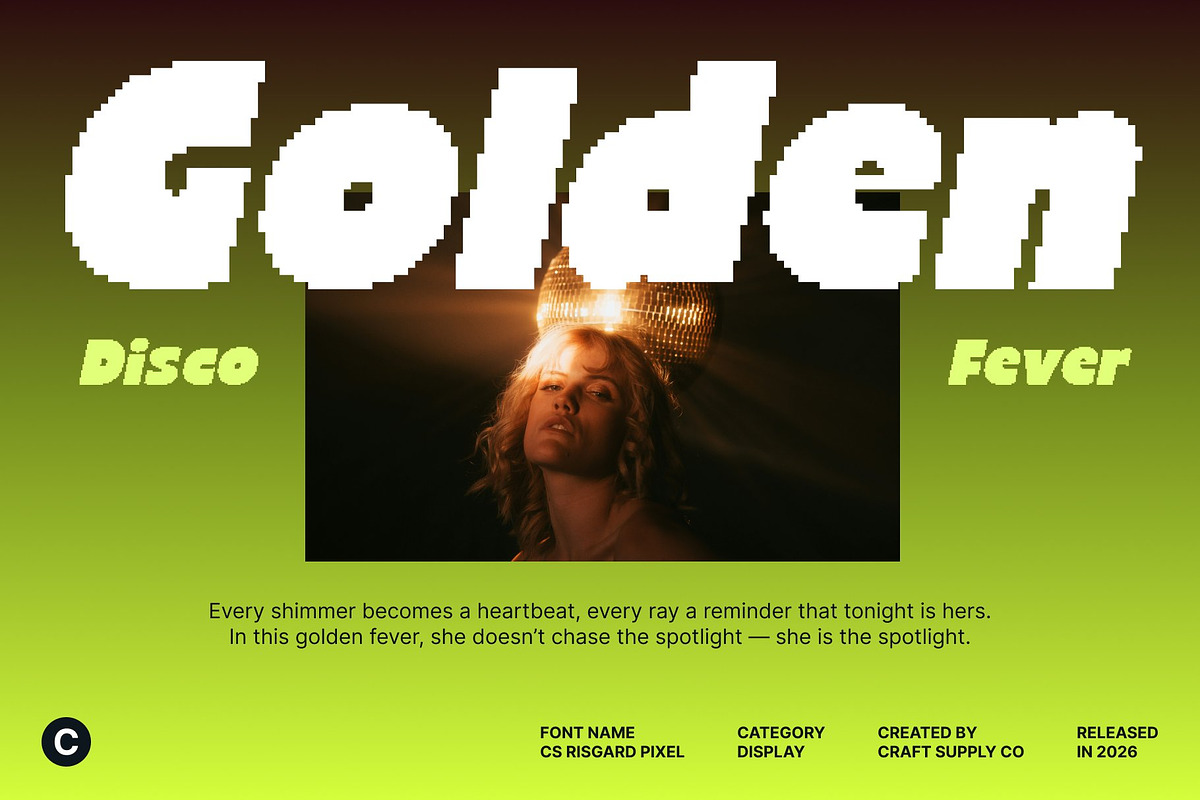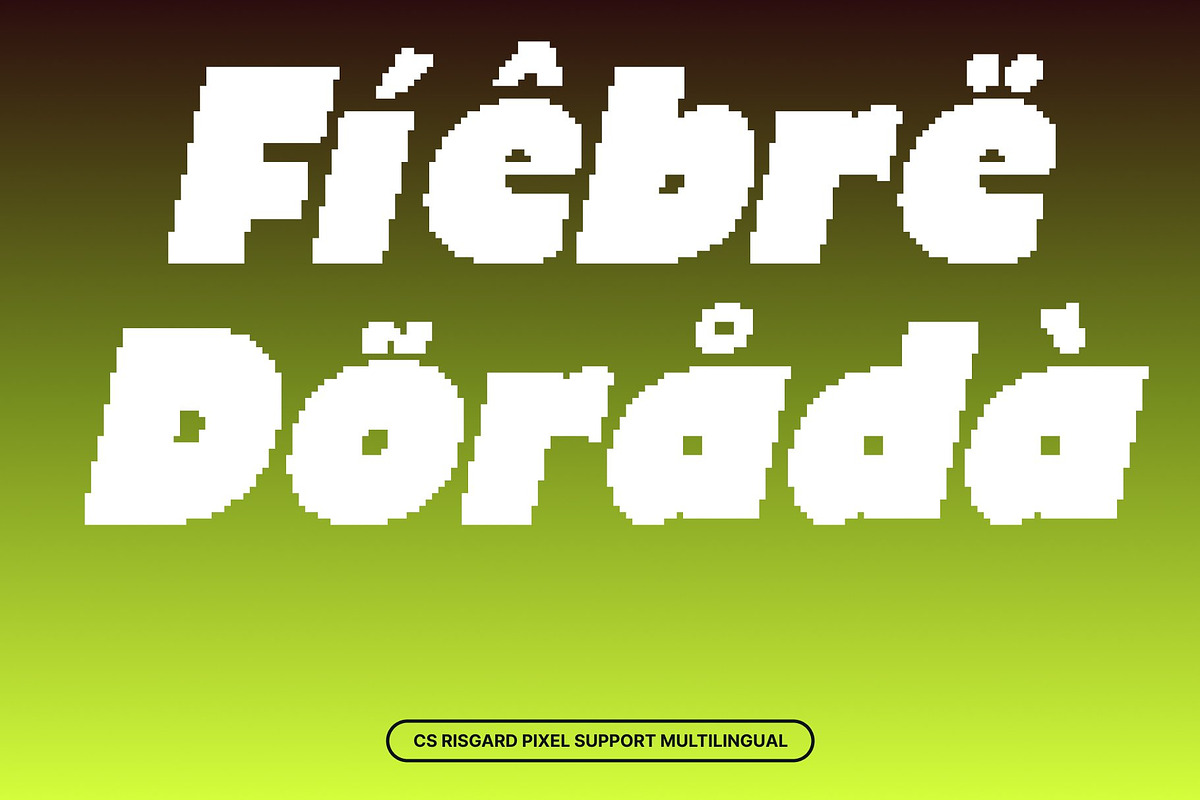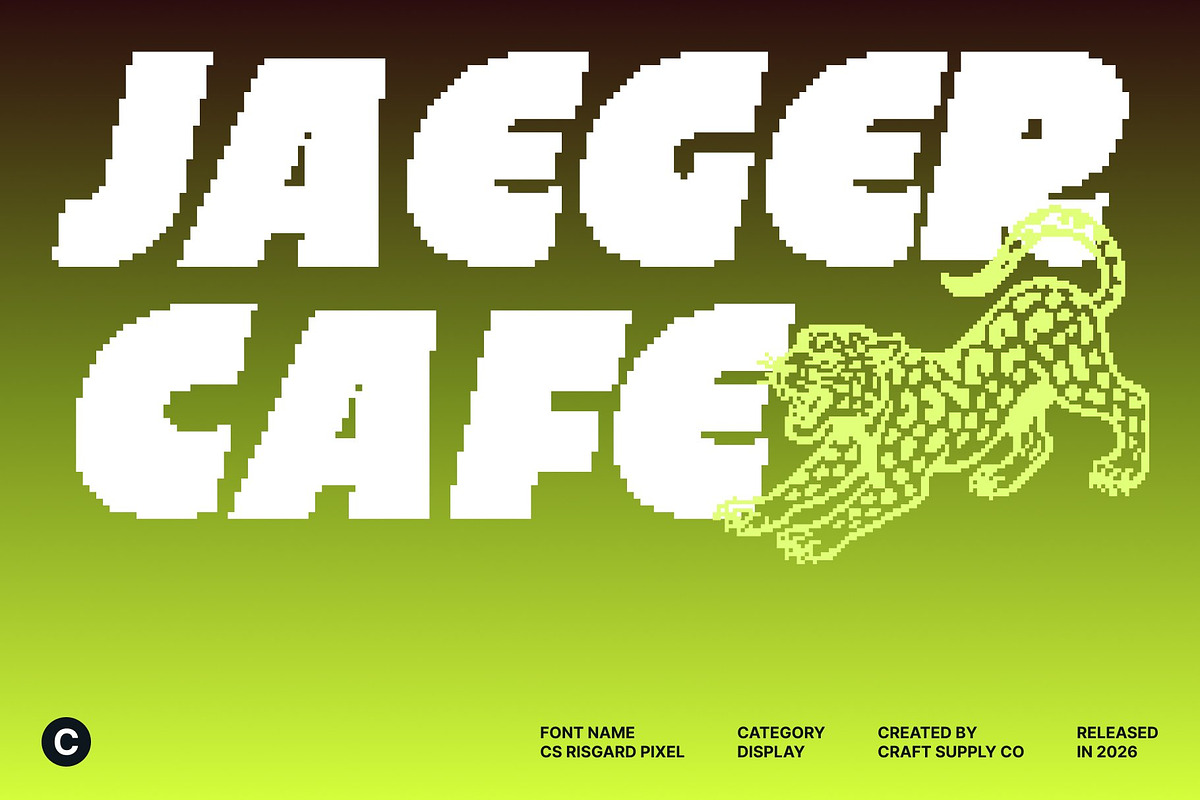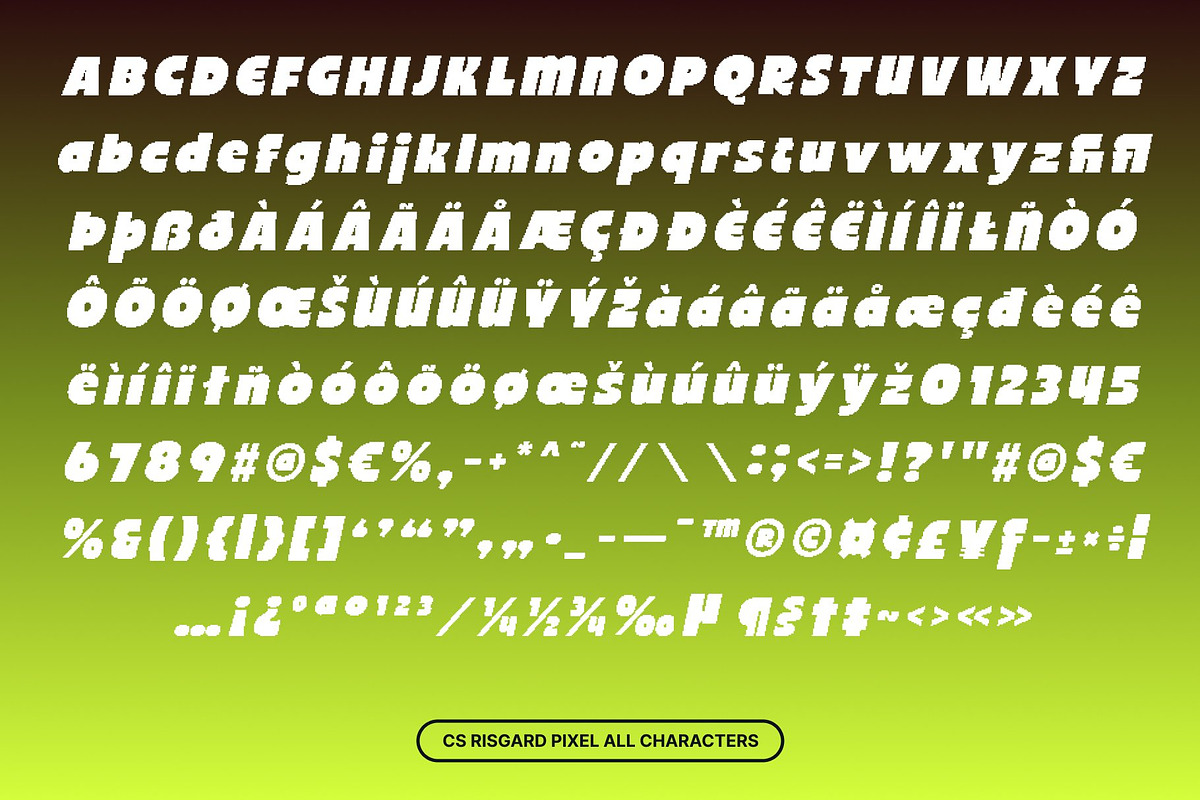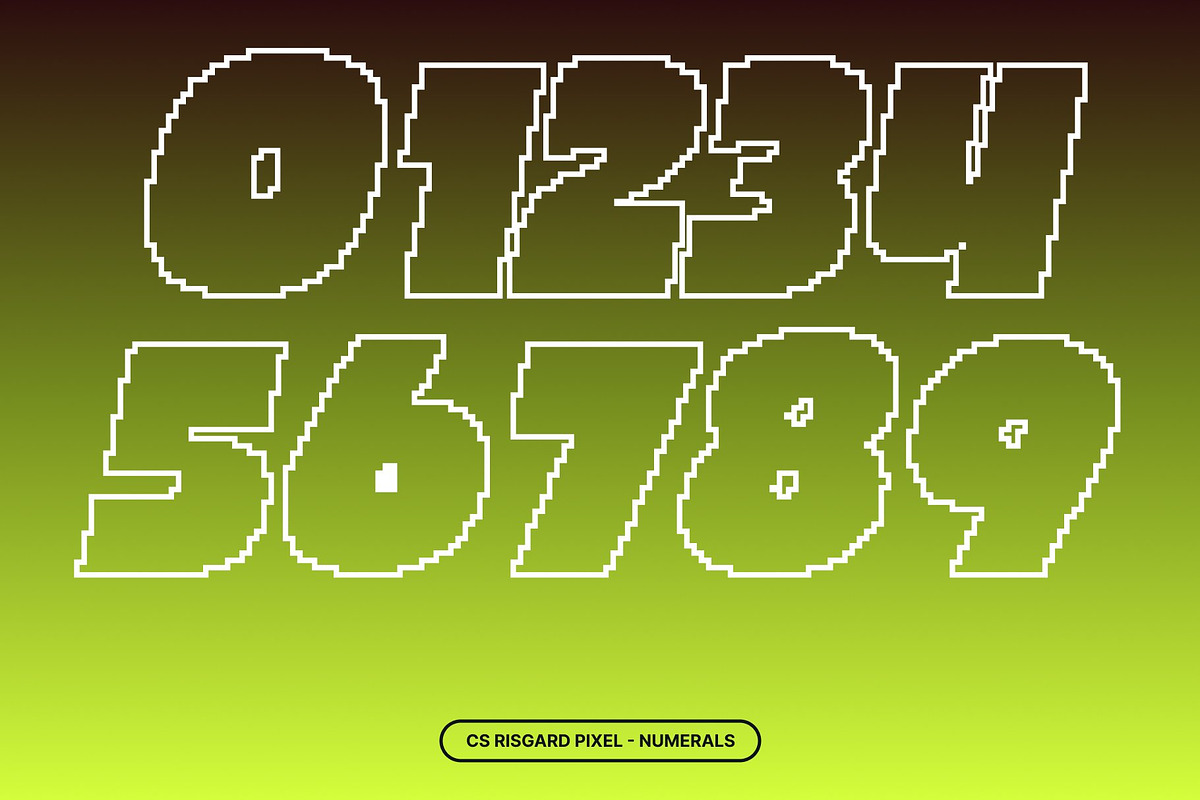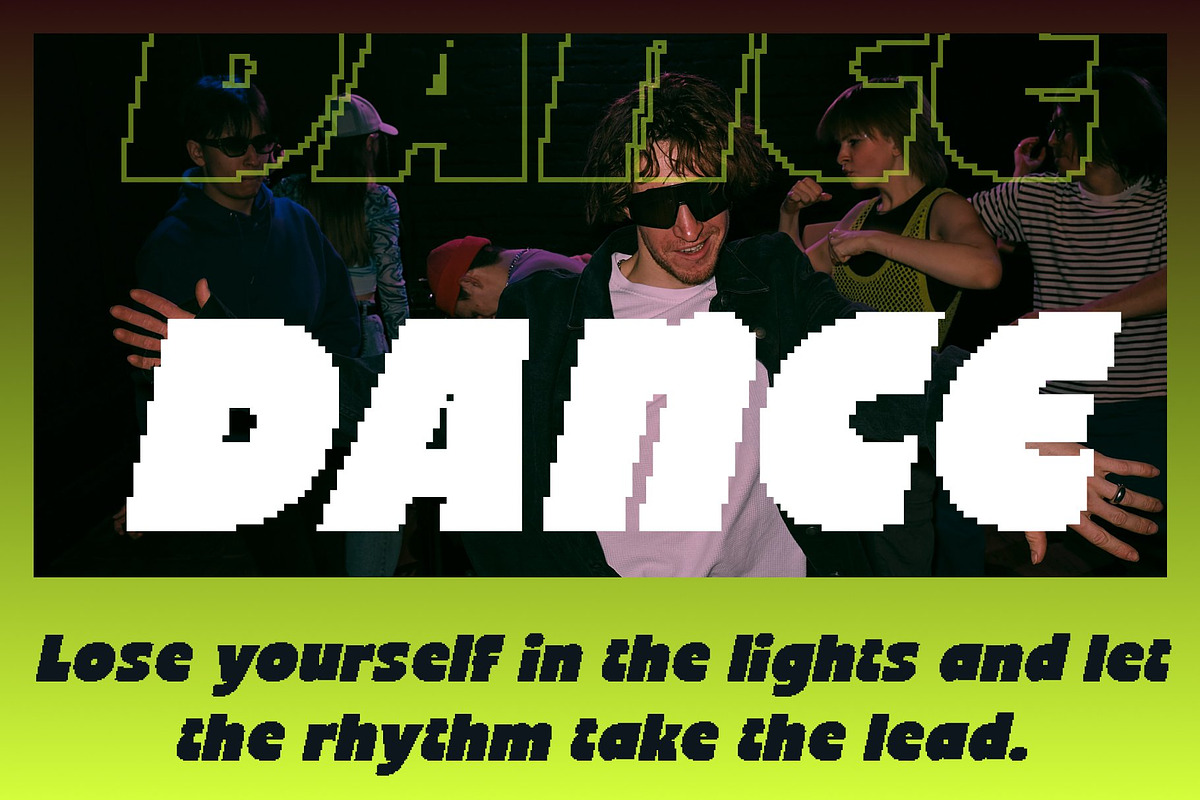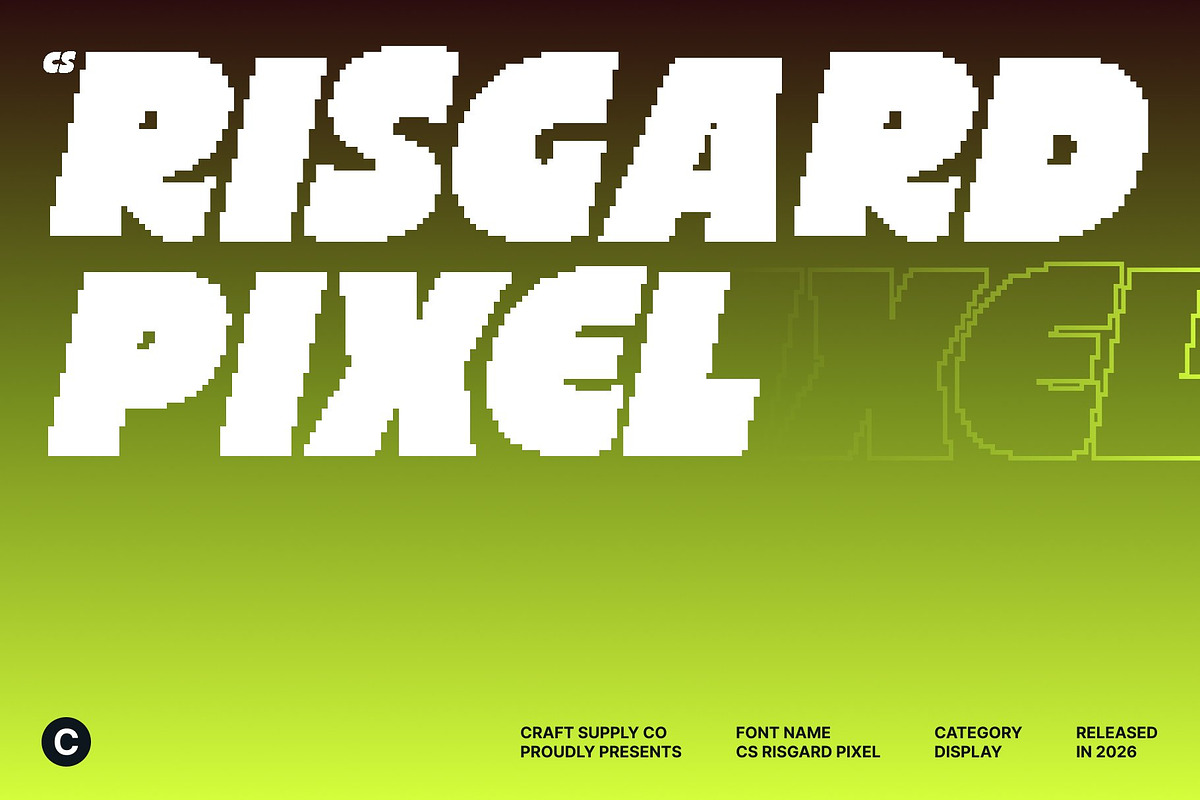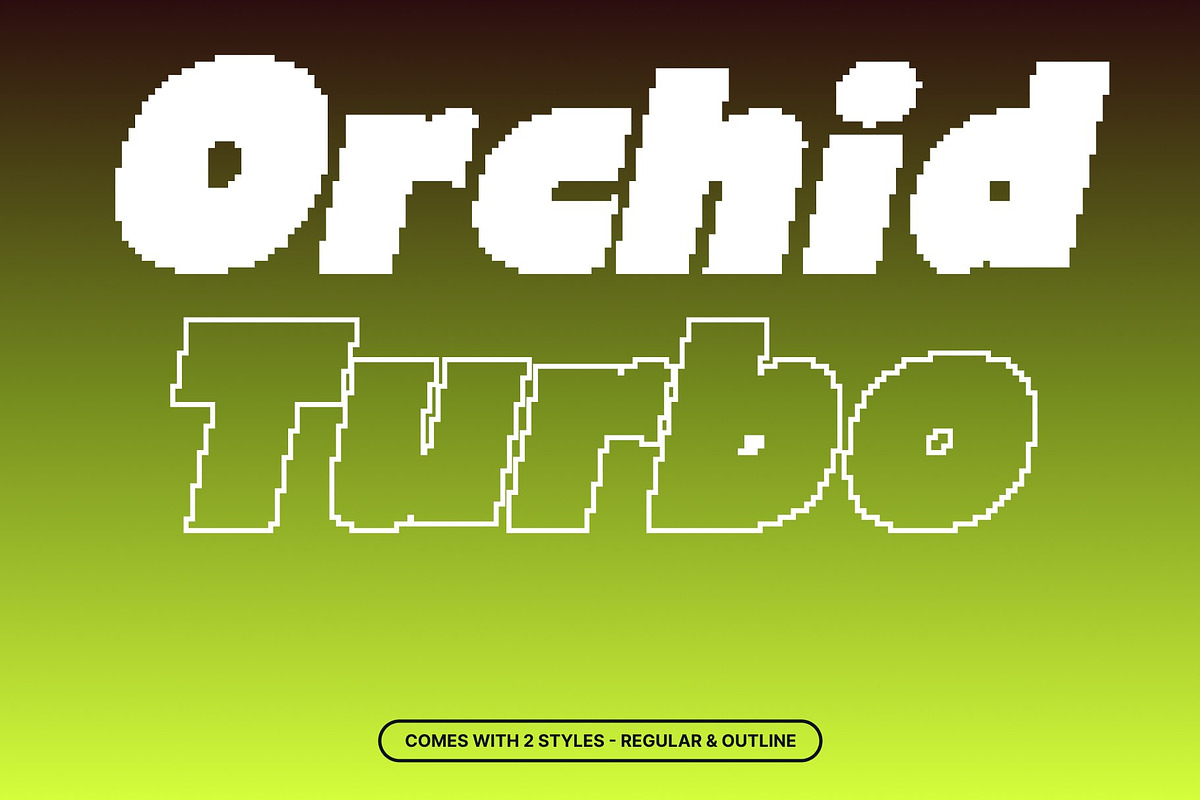
CS Risgard Pixel
CS Risgard Pixel – Bold Modern Sans Serif with Funky Digital Energy
Strong Shapes with Modern Pixel Confidence This is a bold modern sans serif font built with clean, powerful forms and reinforced by a pixel-inspired structure. Each letter is crafted with strong geometry and confident proportions, creating high visual impact that instantly draws attention. The pixel styling adds a digital sharpness that makes the font feel contemporary, energetic, and screen-ready.
Funky Details with Expressive Pixel Character What makes this font stand out is its funky attitude blended with subtle pixel quirks. Playful angles and distinctive details introduce movement and personality, transforming the font from a standard sans serif into an expressive display typeface. This mix of structure and spontaneity gives the font a creative, modern edge that feels bold yet controlled.
Versatile for Bold Branding and Digital Media Designed for maximum impact, this font works seamlessly across logos, posters, packaging, and modern branding. Its solid legibility ensures clarity in both print and digital formats, while the pixel influence makes it especially striking for digital content, tech visuals, and retro-modern designs inspired by screen culture.
Perfect for Creative, Energetic, and Eye-Catching Designs From brand identities and advertising to event titles and editorial layouts, this font adapts effortlessly to high-energy creative projects. It delivers modern strength with a funky digital twist, making it an ideal choice for designers who want typography that feels bold, playful, and unmistakably memorable.